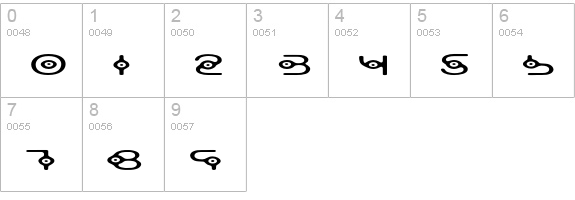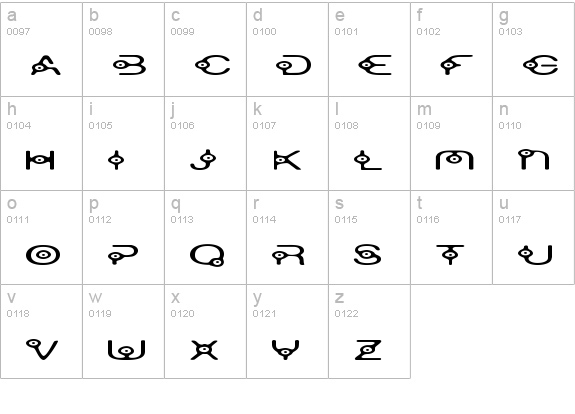
Oscillator Font Details
Oscillator font is a modern and sleek typeface that exudes a sense of energy and movement. Its bold, geometric shapes and sharp angles make it perfect for designs that require a dynamic and edgy look. The clean lines and distinct letterforms of Oscillator font give any project a contemporary and stylish feel. Best of all, Oscillator font is available for free download at FontsMarket.com. With its unique design and free availability, Oscillator font is a must-have for designers looking to add a touch of sophistication and excitement to their work.